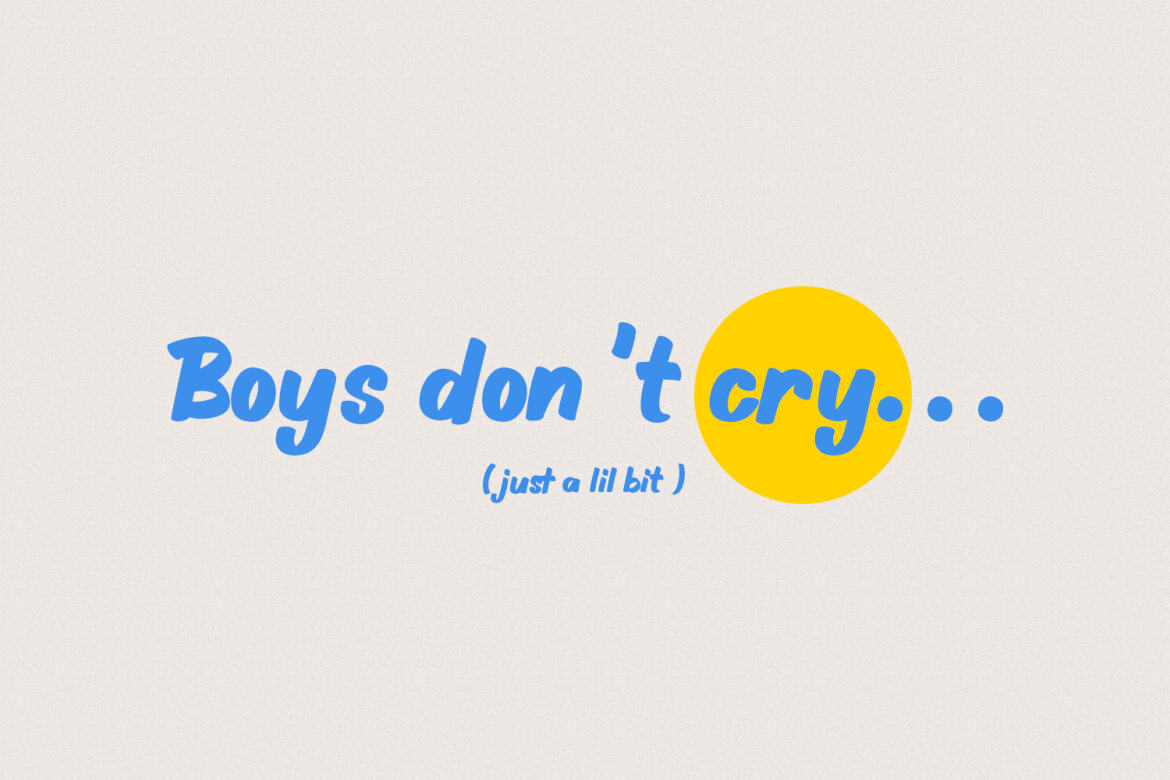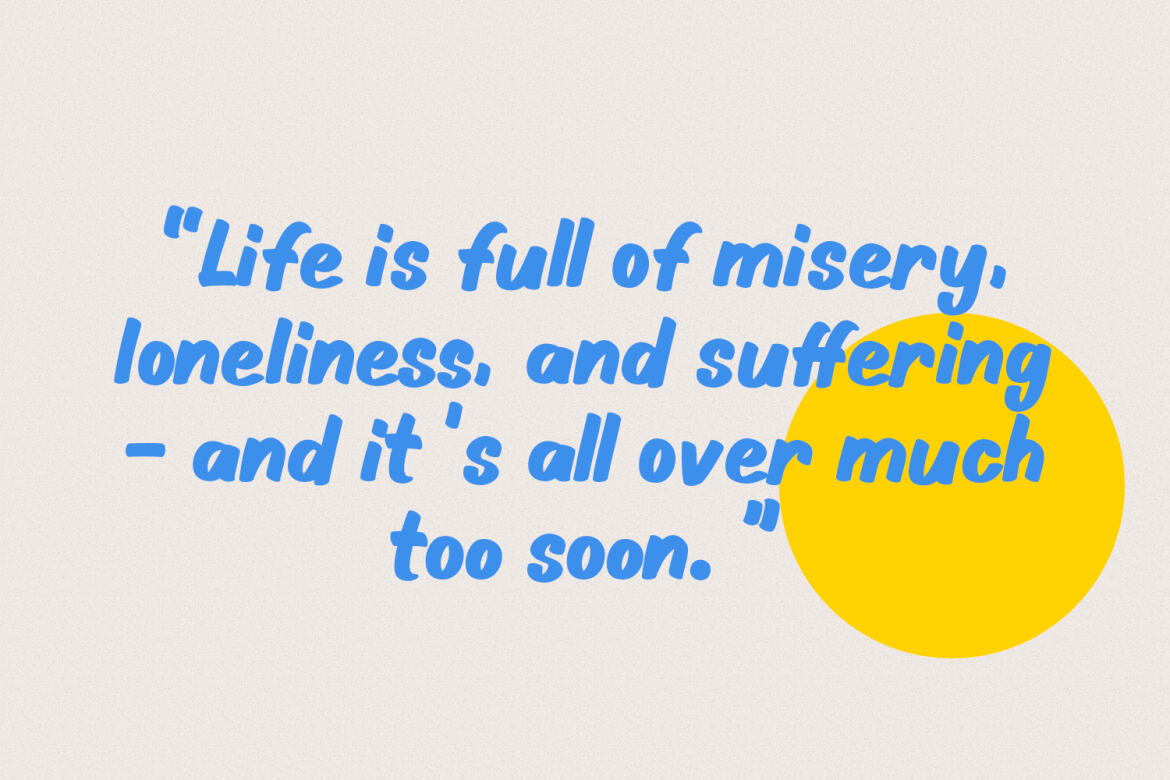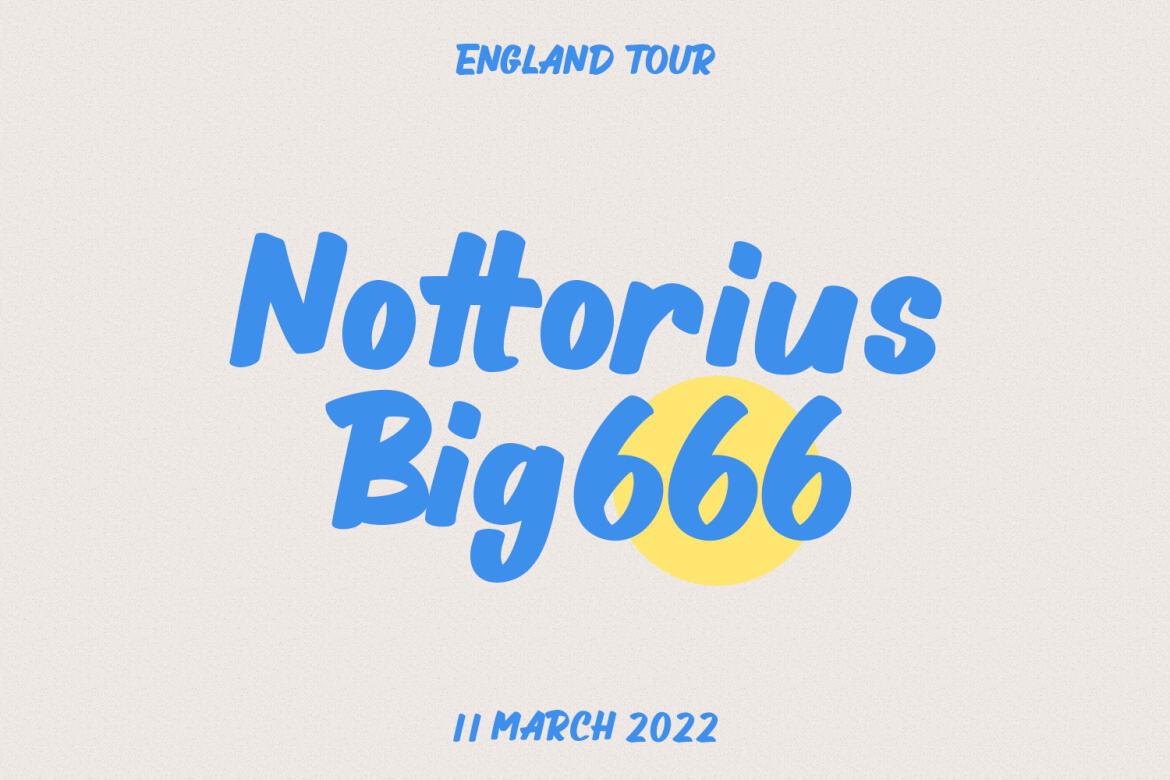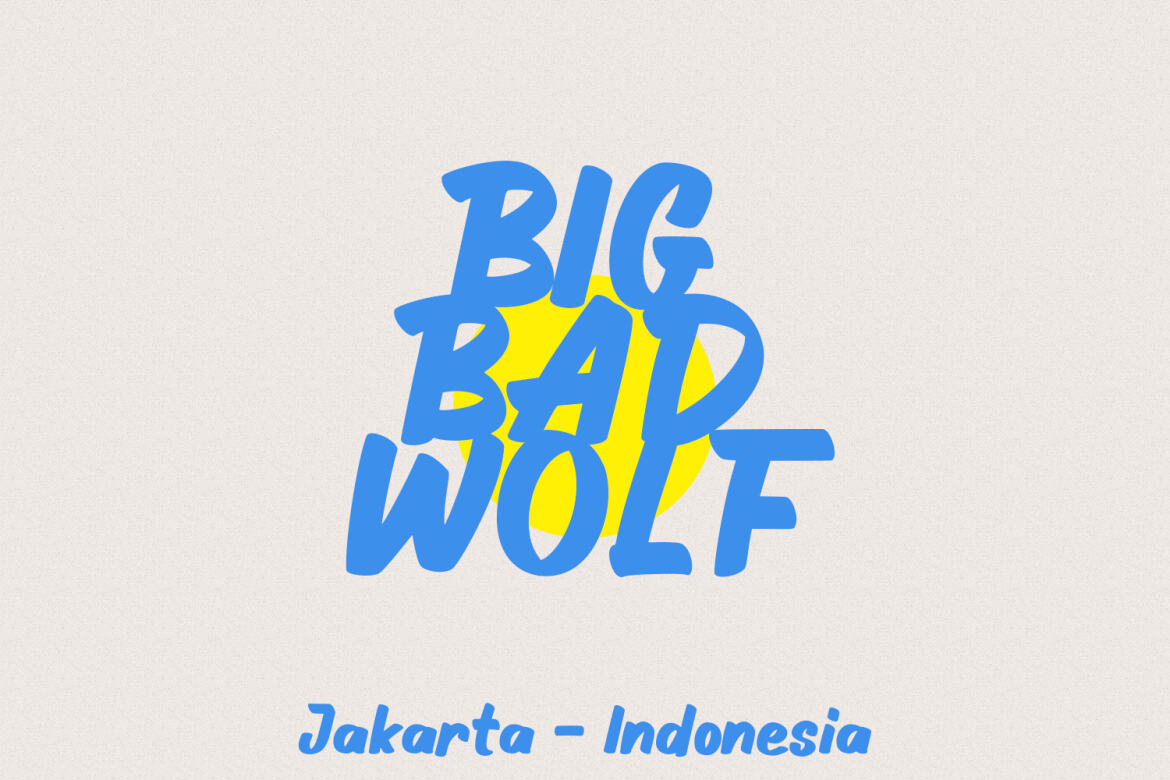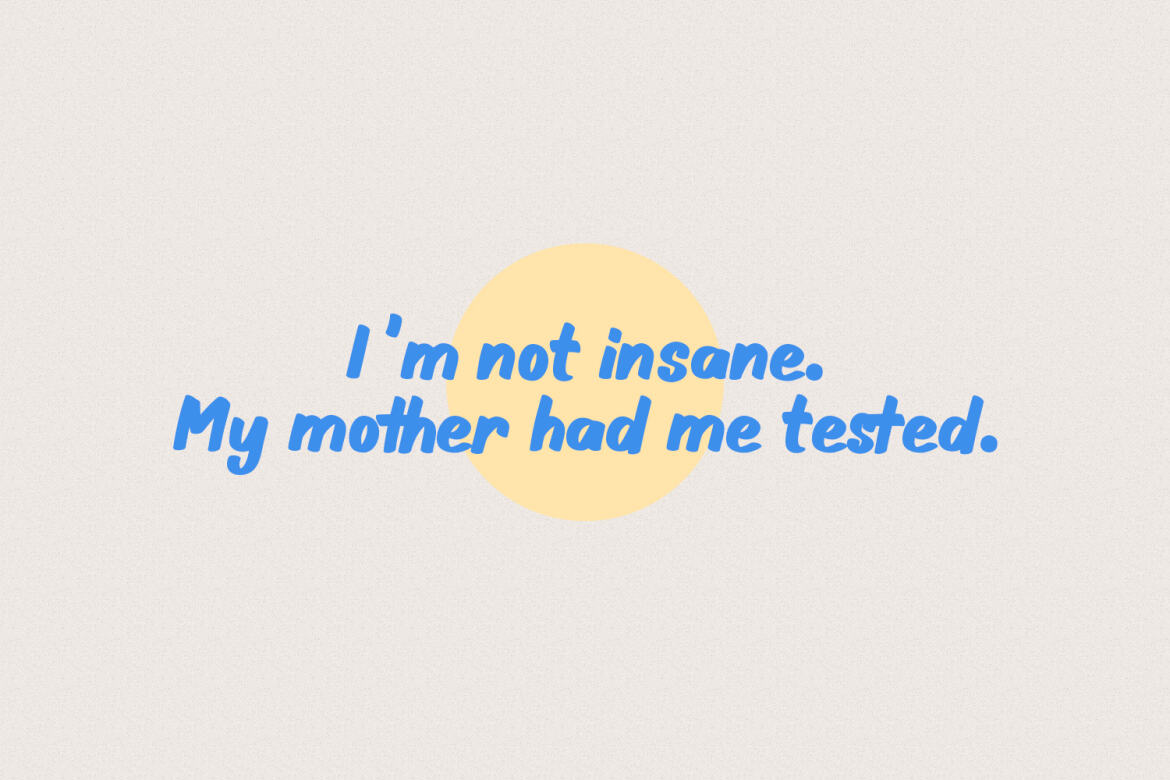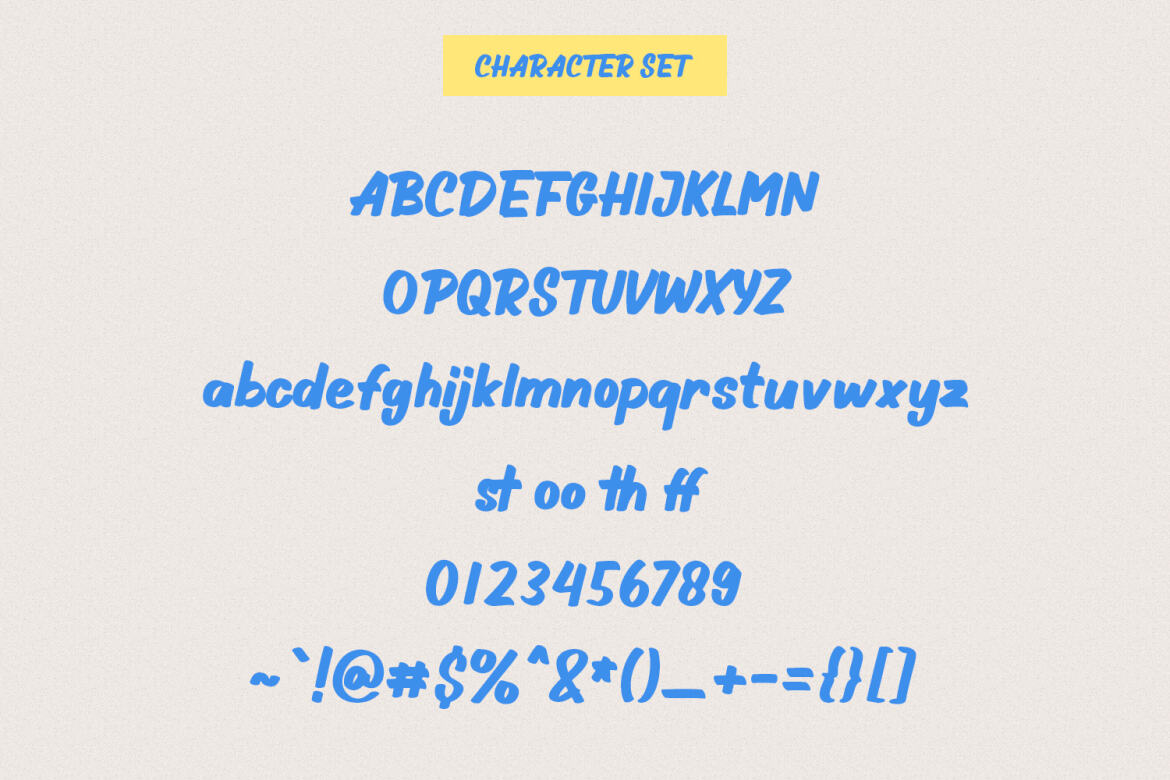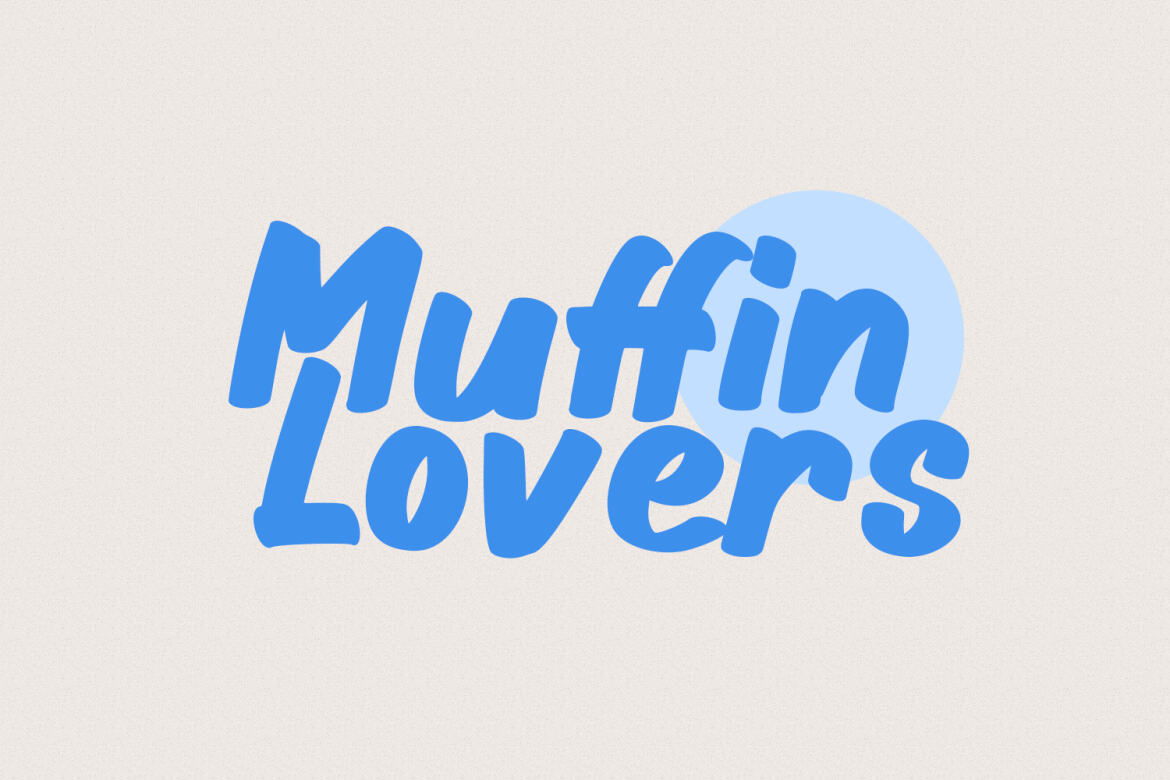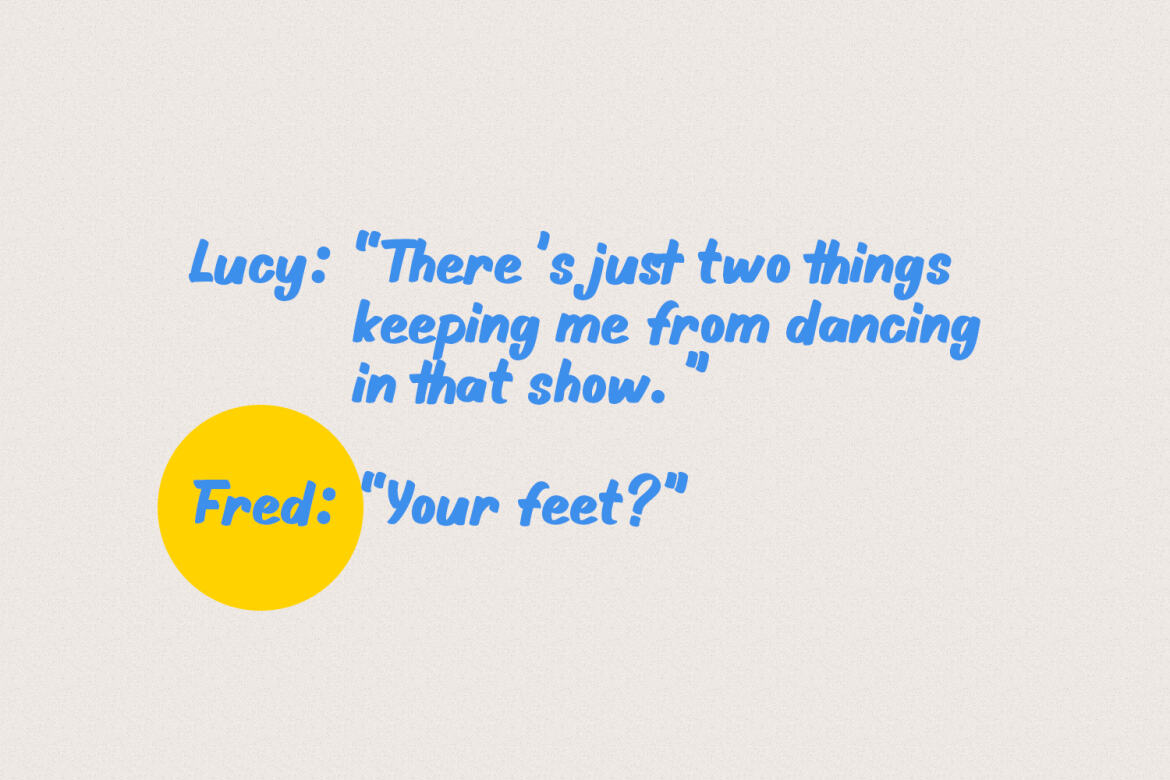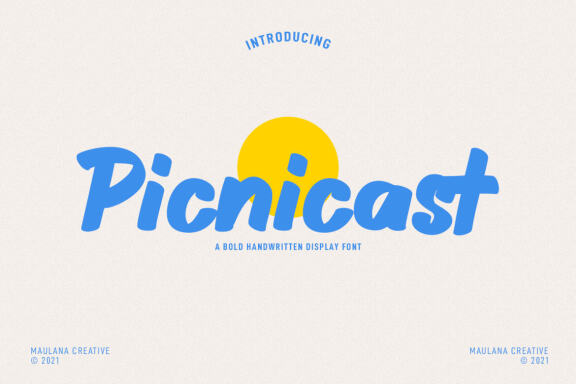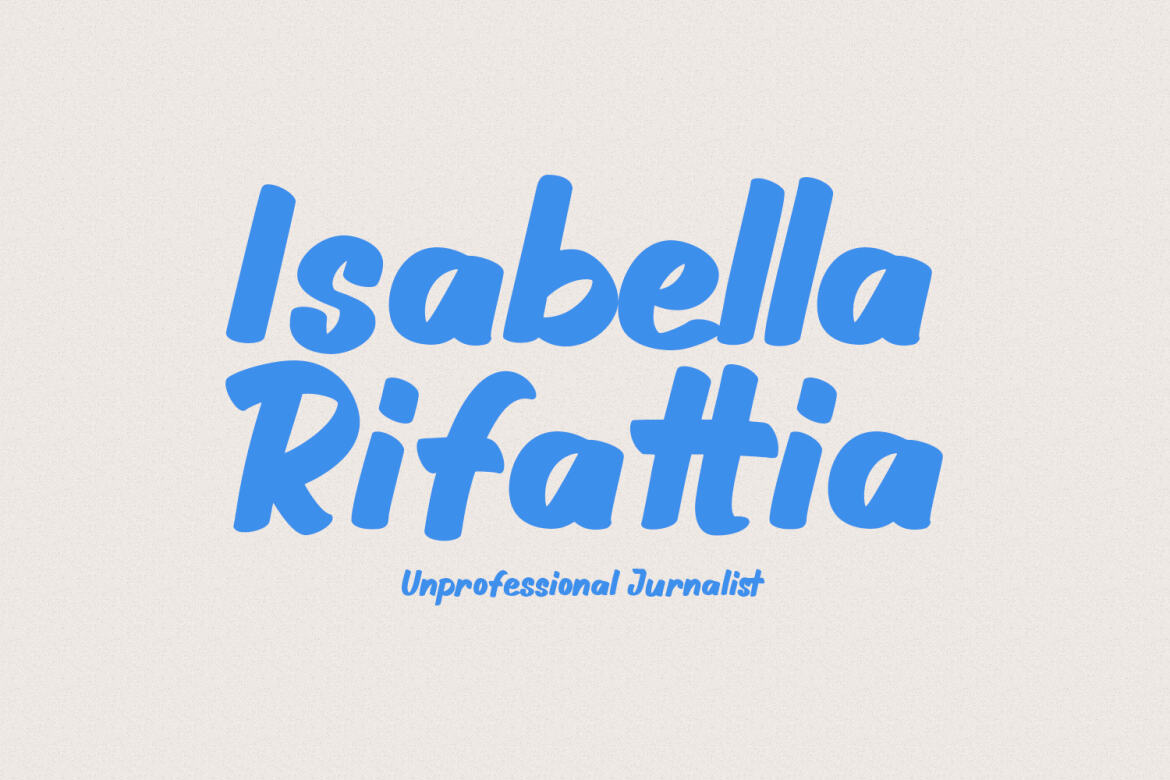
Picnicast Handwritten FREE Font
Picnicast
Picnicast is an Italic handwritten display font. With bold stroke, fun character with a bit of ligatures. To give you an extra creative work. Picnicast font support multilingual more than 100+ language. This font is good for logo design, Social media, Movie Titles, Books Titles, a short text even a long text letter and good for your secondary text font with sans or serif. Make a stunning work with Picnicast font.